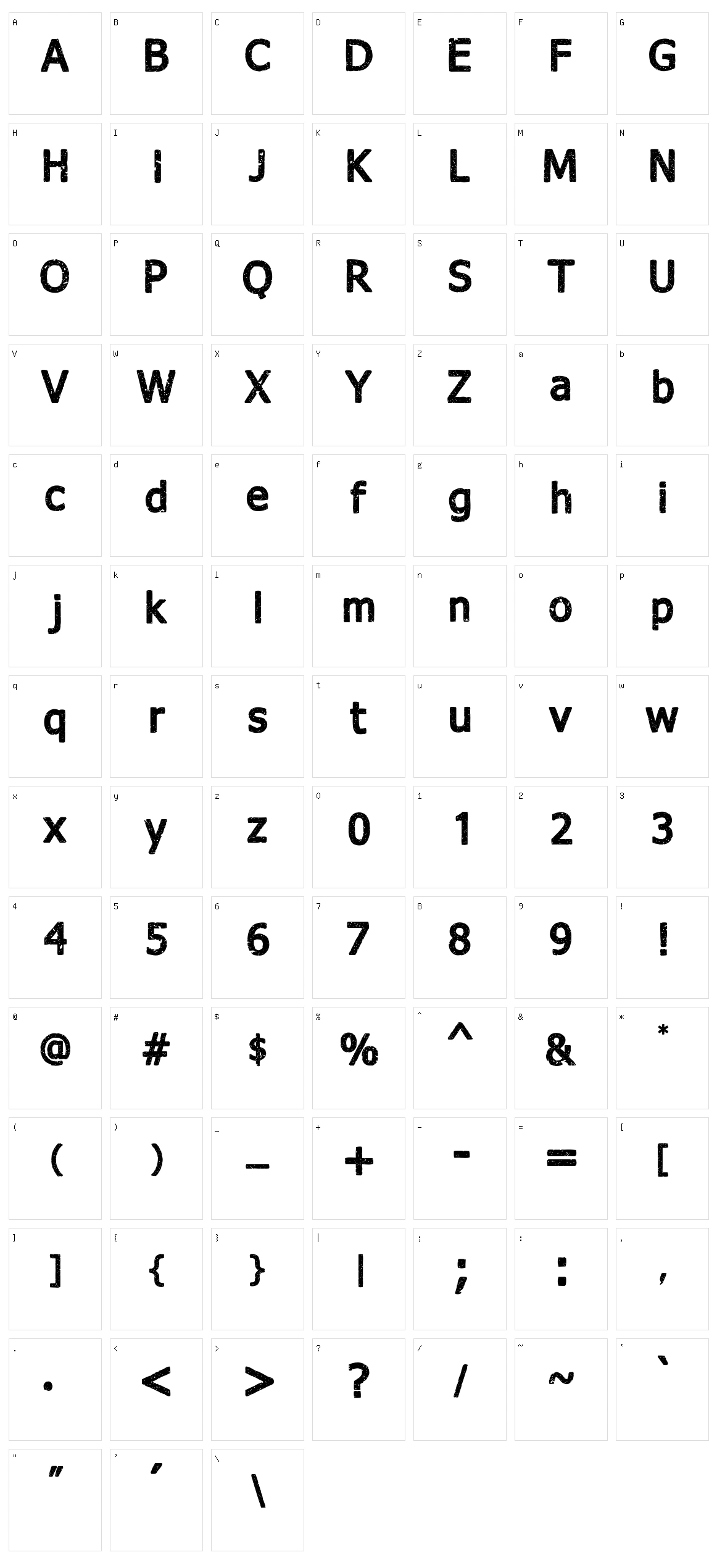
The free font Good bye lullaby is carefully designed by Sba Factory, showcasing a thoughtful balance of creativity and usability and falls under the Eroded font style. When you download the ZIP file, it contains only 76.82 KB of font files, making it lightweight and quick to download. Please review the license details below to understand permitted usage and distribution rights. If license information is not available, we recommend using this font for personal projects only or contacting the author directly for commercial usage permissions.